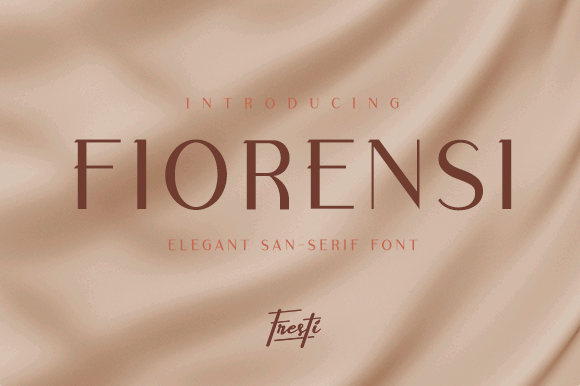
Fiorensi Font
Fiorensi is an elegant and cool serif font. Simple but with a strong visual effect, this font will instantly make your creation more appealing than any others.